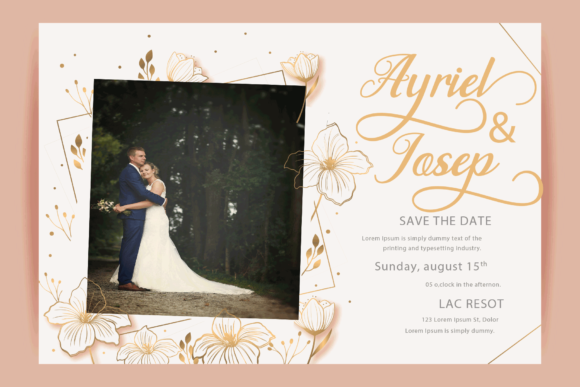
About Lettering Script Font
Lettering Script is a classic and romantic handwritten font. It looks beautiful on a variety of designs requiring a personalized style, such as wedding invitations, thank you cards, weddings, greeting cards, logos and so on.